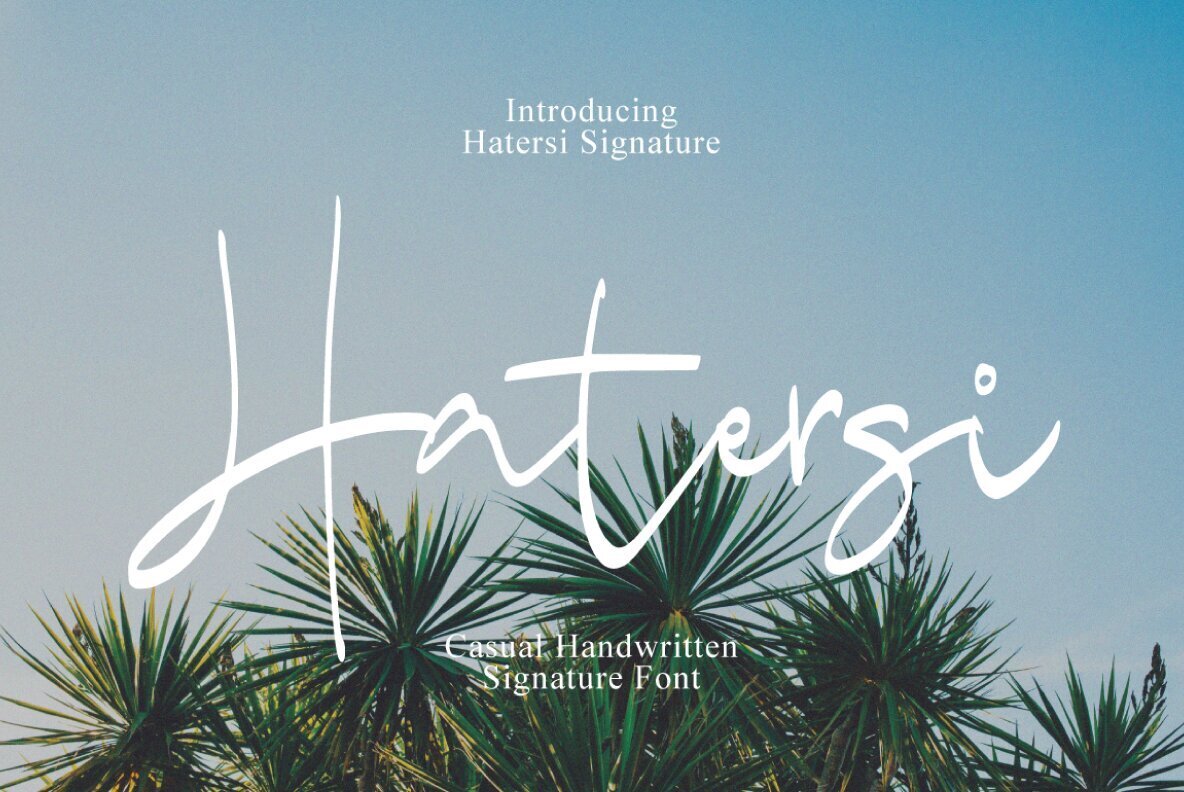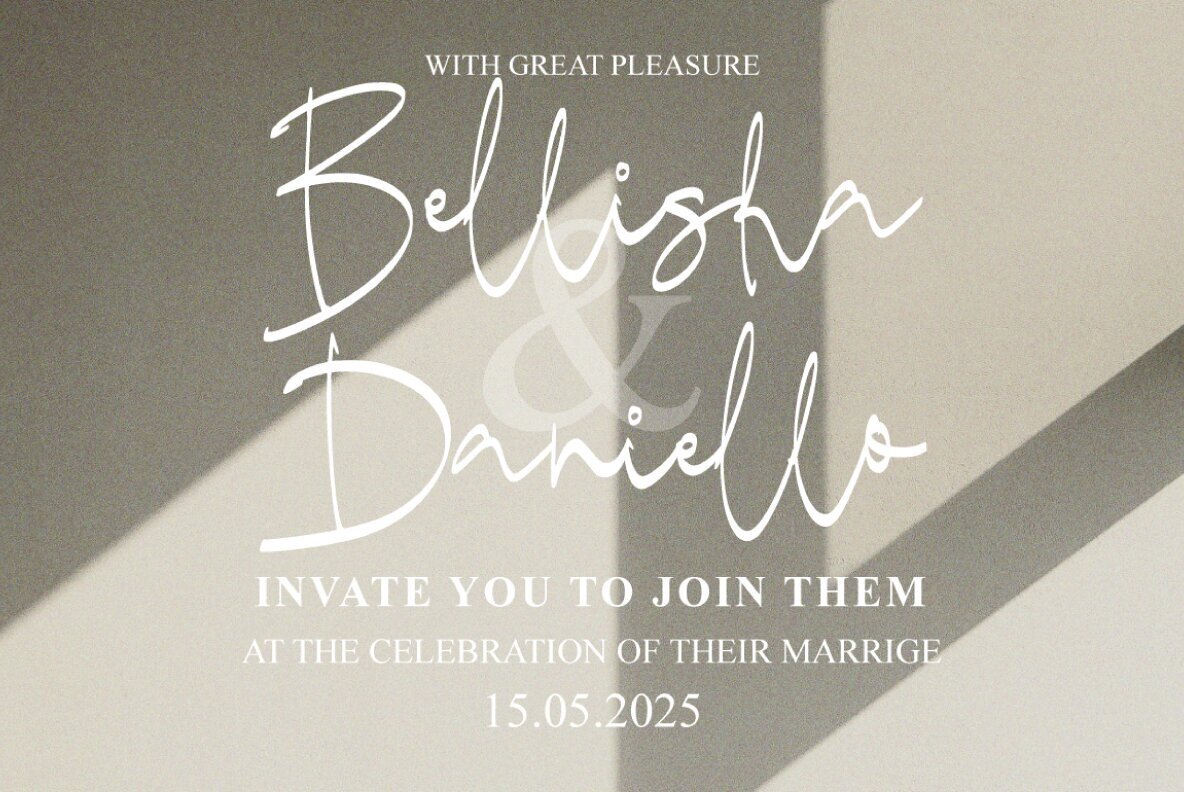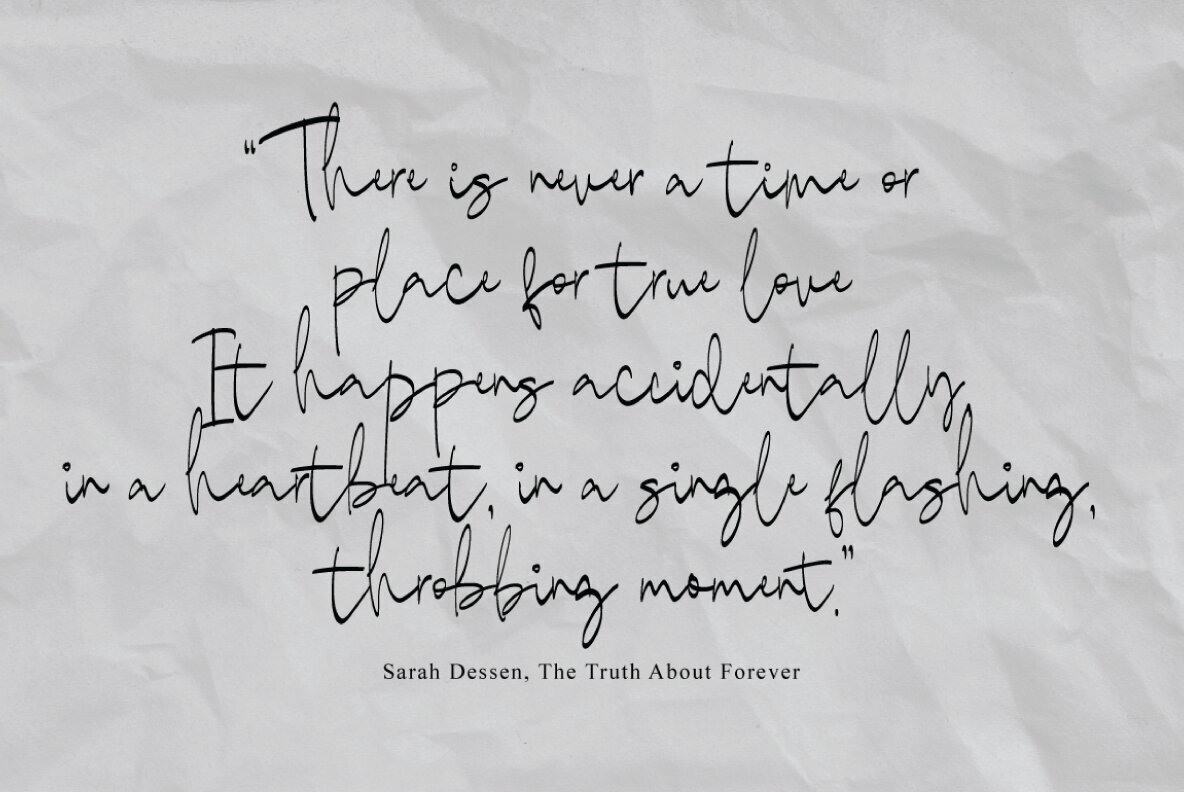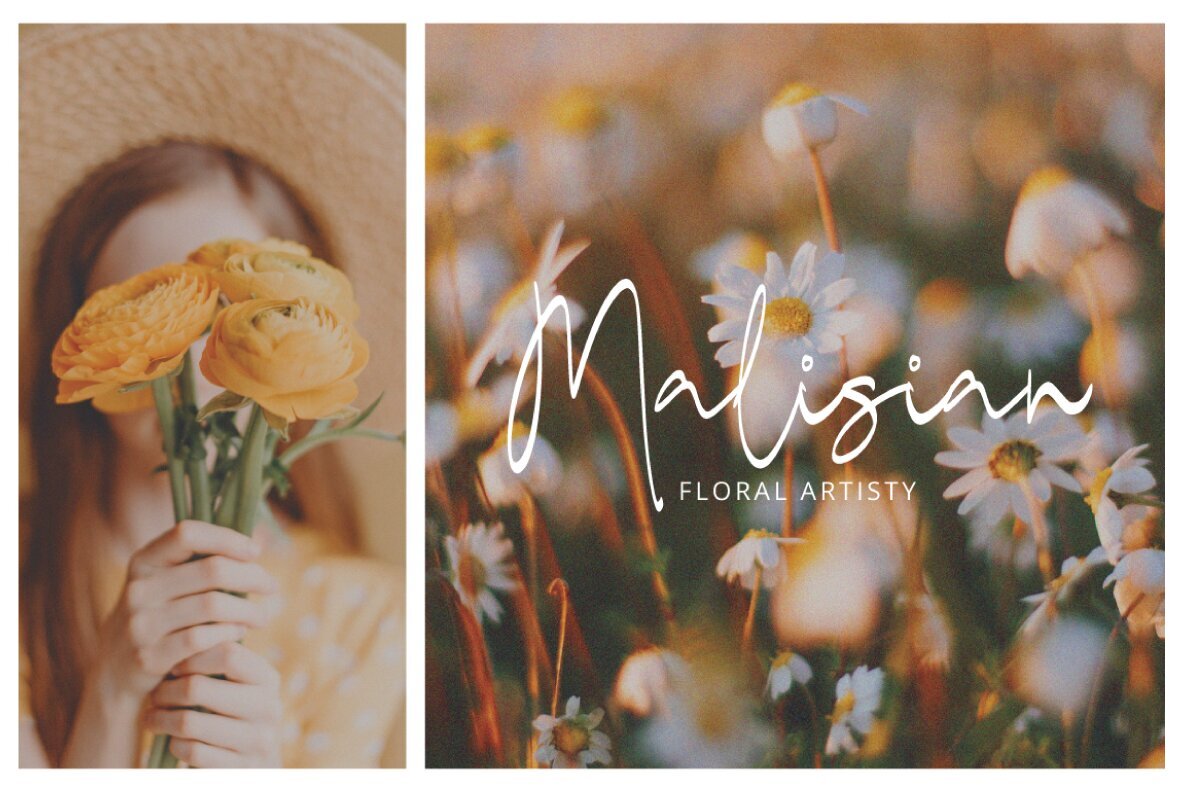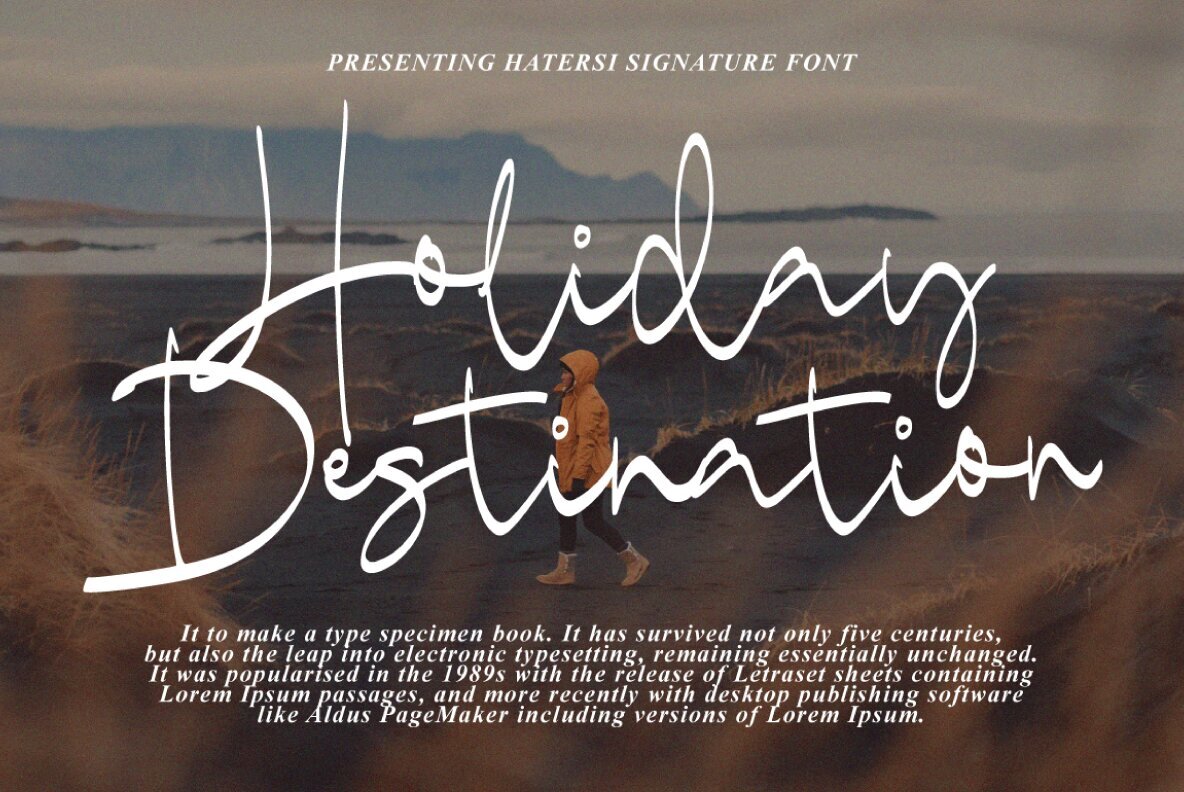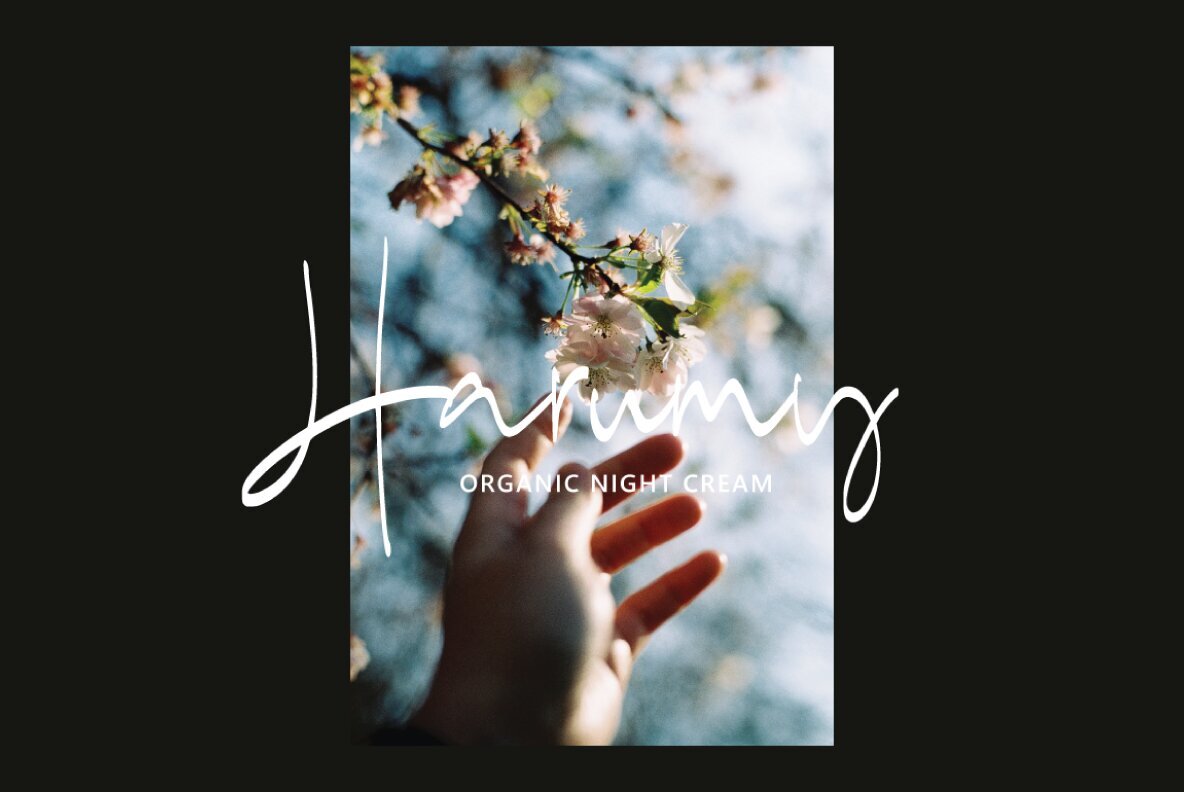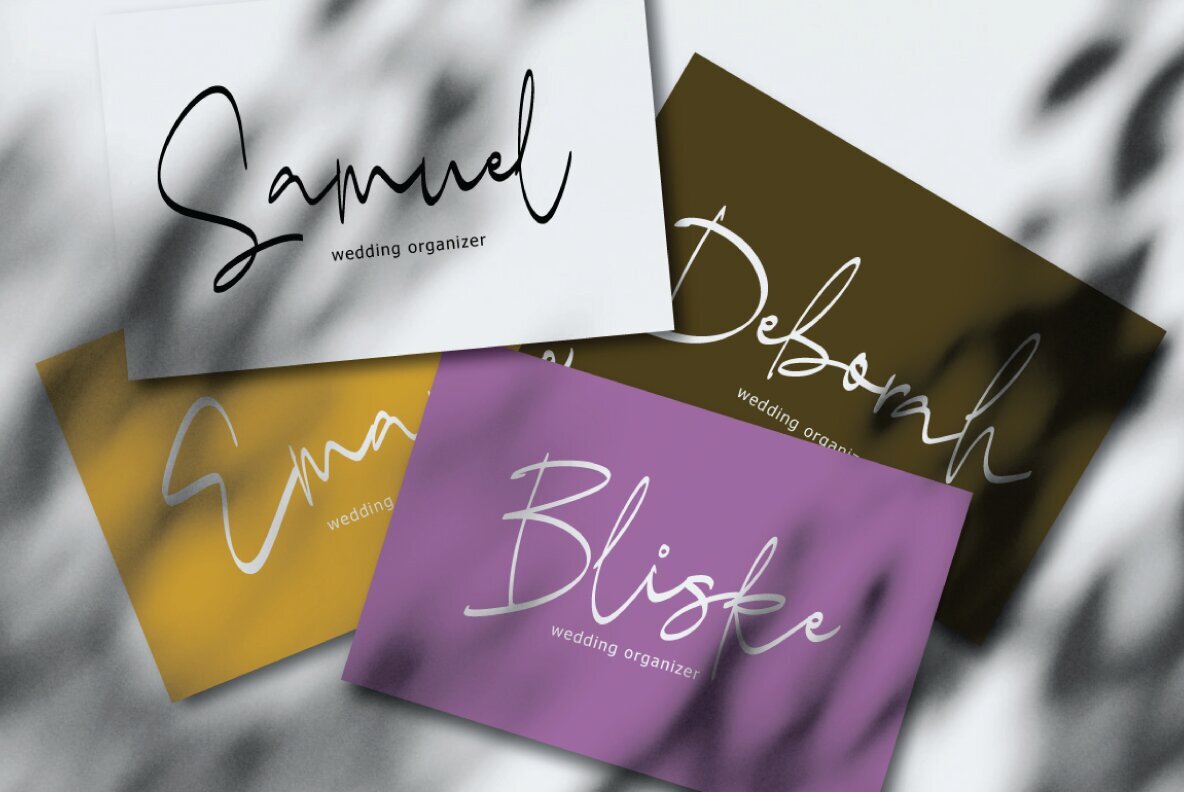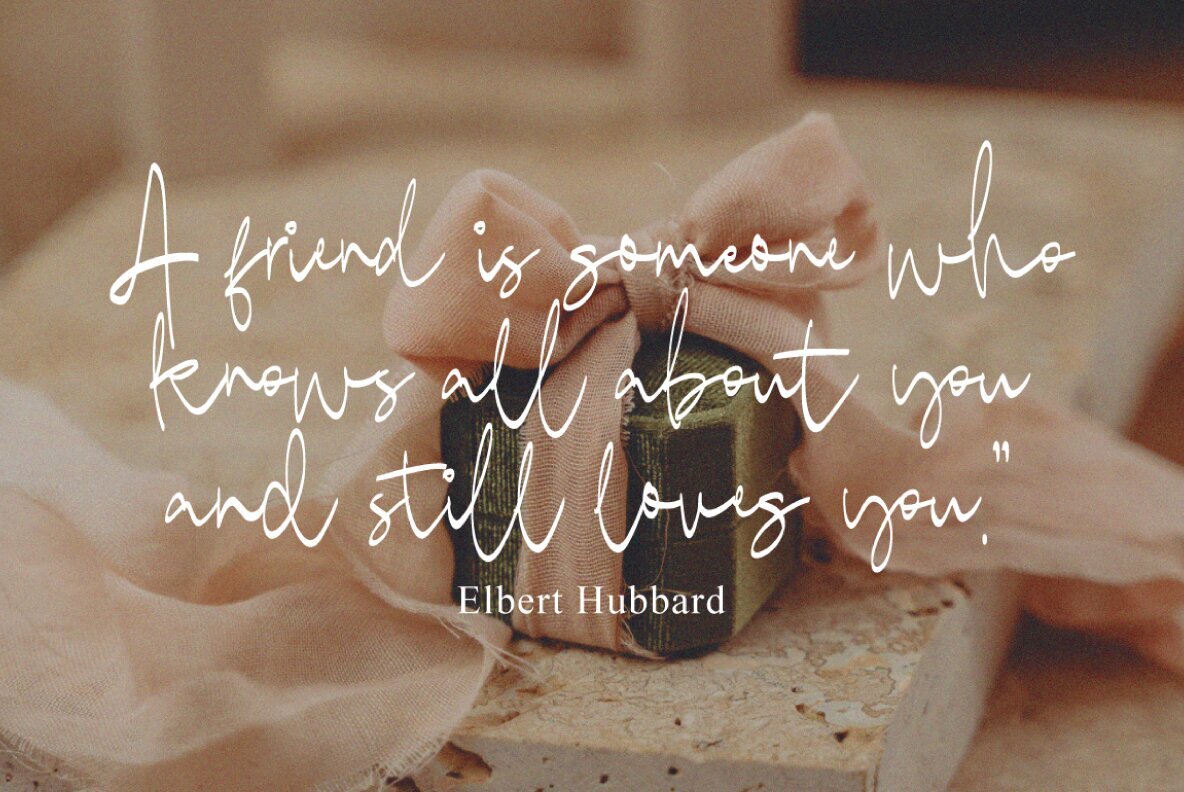
Hatersi Font
Hatersi Signature Regular
Hatersi Signature offers a handcrafted charm, imbuing your designs with decorative flair and a dynamic baseline. This signature font enhances invitation cards, branding materials, business cards, quotes, posters, and more. With over 200 glyphs, Hatersi Signature is versatile for creative expression. The font includes alternative characters divided into various OpenType features, like Swash, Stylistic Sets, Stylistic Alternates, and Ligatures. These features are easily accessible through OpenType savvy software such as Adobe Illustrator, Adobe InDesign, and CorelDRAW. Also, with PUA unicode coding, alternate characters are fully accessible, serving designers and craftsmen efficiently. For those not using programs that support OpenType, access all alternate glyphs through Font Book (Mac) or Character Map (Windows).Hatersi Signature: Elegant Handmade Typeface